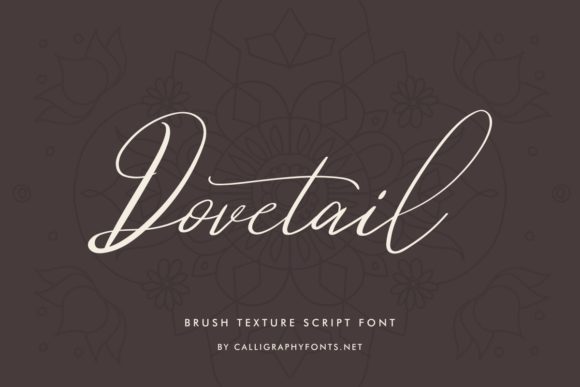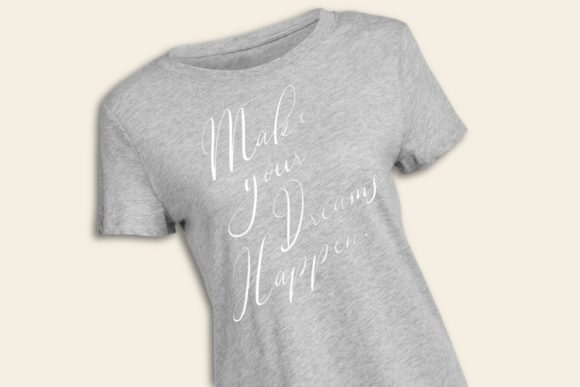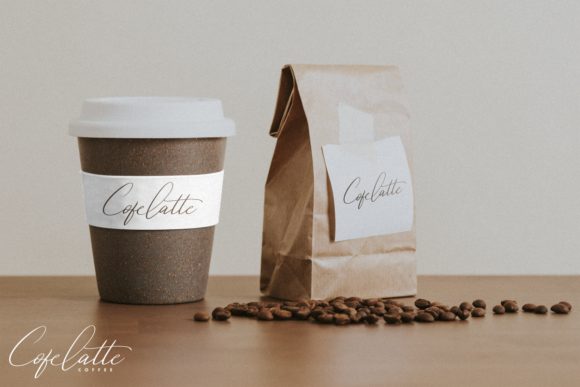
Introduction to Dovetail Font
Have you ever found yourself staring at a blank page, trying to bring your creative vision to life? The blank canvas can be intimidating, but with the right tools, the possibilities are endless. For designers, the search for the perfect font can be a make-or-break moment in the creative process.
Enter Dovetail Font, a delicate, elegant, and flowing handwritten font that has captured the hearts of designers around the world. With its beautiful and well-balanced characters, Dovetail Font is a versatile design resource that matches a wide pool of designs, from free download to high-end creative projects.
Whether you’re working on a design project with a transparent background or need a stunning font to elevate your creative idea, Dovetail Font is a valuable addition to your design arsenal. Its gorgeous glyphs, stunning alternates, and varying baseline make it the perfect choice for designers looking to take their work to the next level.
Key Features of Dovetail Font
- High-quality, professional font design suitable for various creative projects.
- Features a unique, hand-crafted design with intricate details, perfect for adding a touch of elegance to any project.
- Perfect for use in a variety of creative projects, including logos, branding materials, and digital art.
Honest Review: Dovetail Font
I recently had the chance to work with the Dovetail Font and I must say, it’s been a game-changer for my creative projects. This high-quality design resource is perfect for anyone looking to add a touch of elegance and sophistication to their work.
- ✨ Beautifully crafted letters and characters that are easy to read and understand.
- ✨ A wide range of font weights and styles to choose from, making it perfect for a variety of creative projects.
- ✨ Transparent background option allows for easy customization and blending with other design elements.
- ⚠️ Limited font sizes available for download, which may require some extra effort to create custom sizes.
- ⚠️ Not ideal for very large-scale projects, as it may not be as legible at extreme sizes.
Overall, I’m thoroughly impressed with the Dovetail Font. It’s a fantastic addition to any designer’s toolkit and I would highly recommend it for any creative project. Plus, it’s available for free download, making it an excellent value for the price.
Experiment with different font sizes and styles to create a visually appealing design. Use the Dovetail Font in combination with other design elements to add depth and interest to your project.
The Dovetail Font is perfect for creative projects, such as brochures, posters, and social media graphics. Its high-quality design makes it ideal for professional and personal projects alike.
Alternatives to Dovetail Font
The Great Vibes Font is a high-quality, elegant script font perfect for creative projects. It’s ideal for designing invitations, logos, and other design elements where a touch of sophistication is needed.
Compared to Dovetail Font, Great Vibes Font offers a more refined and luxurious feel. It’s a great choice for designers looking for a font with a high level of detail and nuance.
The Alex Brush Font is a beautiful, handwritten font that’s perfect for adding a personal touch to design projects. It’s great for use on free download resources, social media graphics, and other design elements where a creative, handwritten feel is desired.
Compared to Dovetail Font, Alex Brush Font has a more relaxed and casual feel. It’s a great choice for designers looking for a font with a lot of character and personality.
Does the Dovetail Font have a transparent background?
The Dovetail Font does not have a transparent background, as it’s a solid font design. However, you can use it in conjunction with a transparent background image or design element to create a unique visual effect. This flexibility makes the Dovetail Font a versatile design resource for various creative projects.